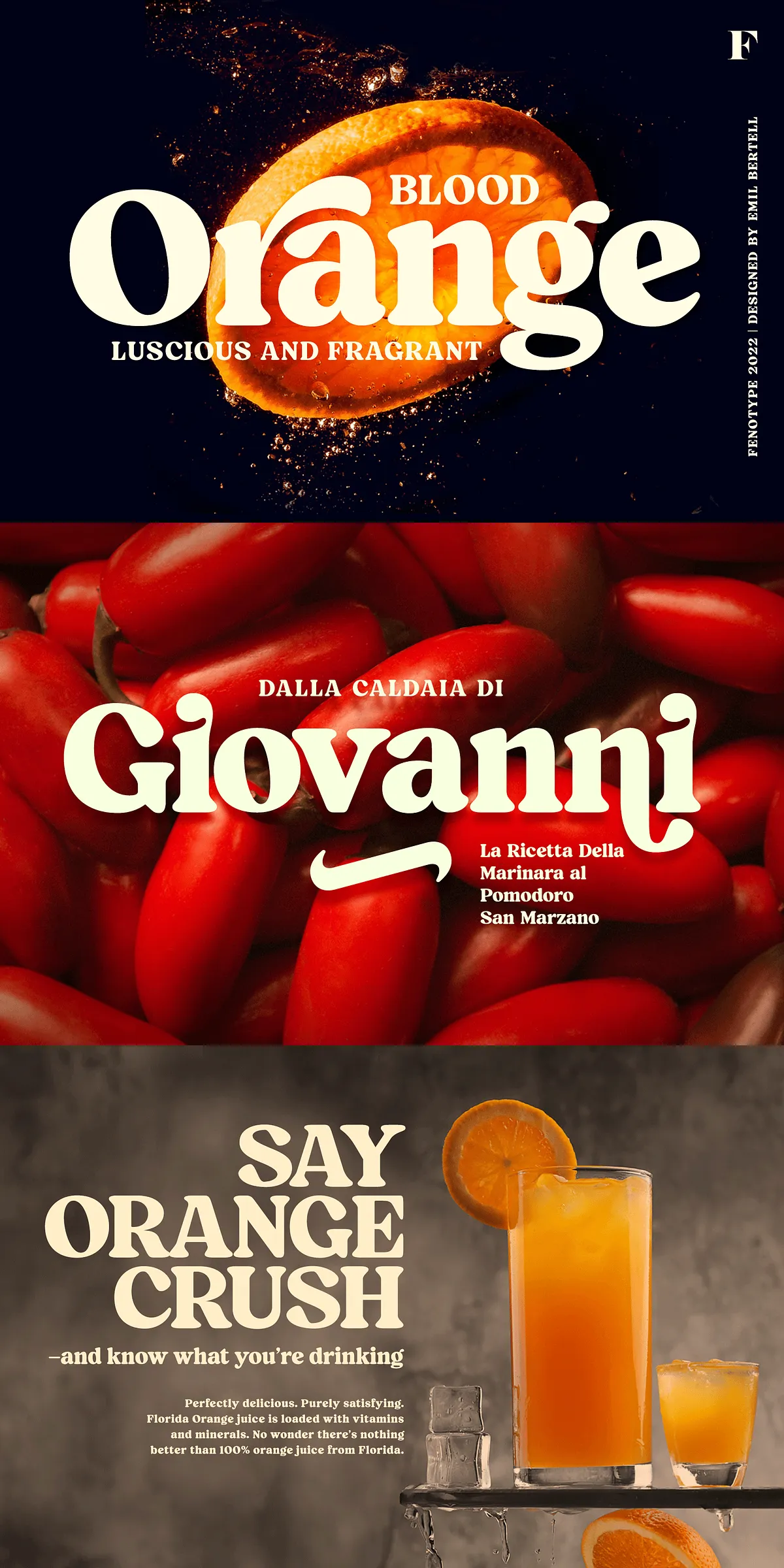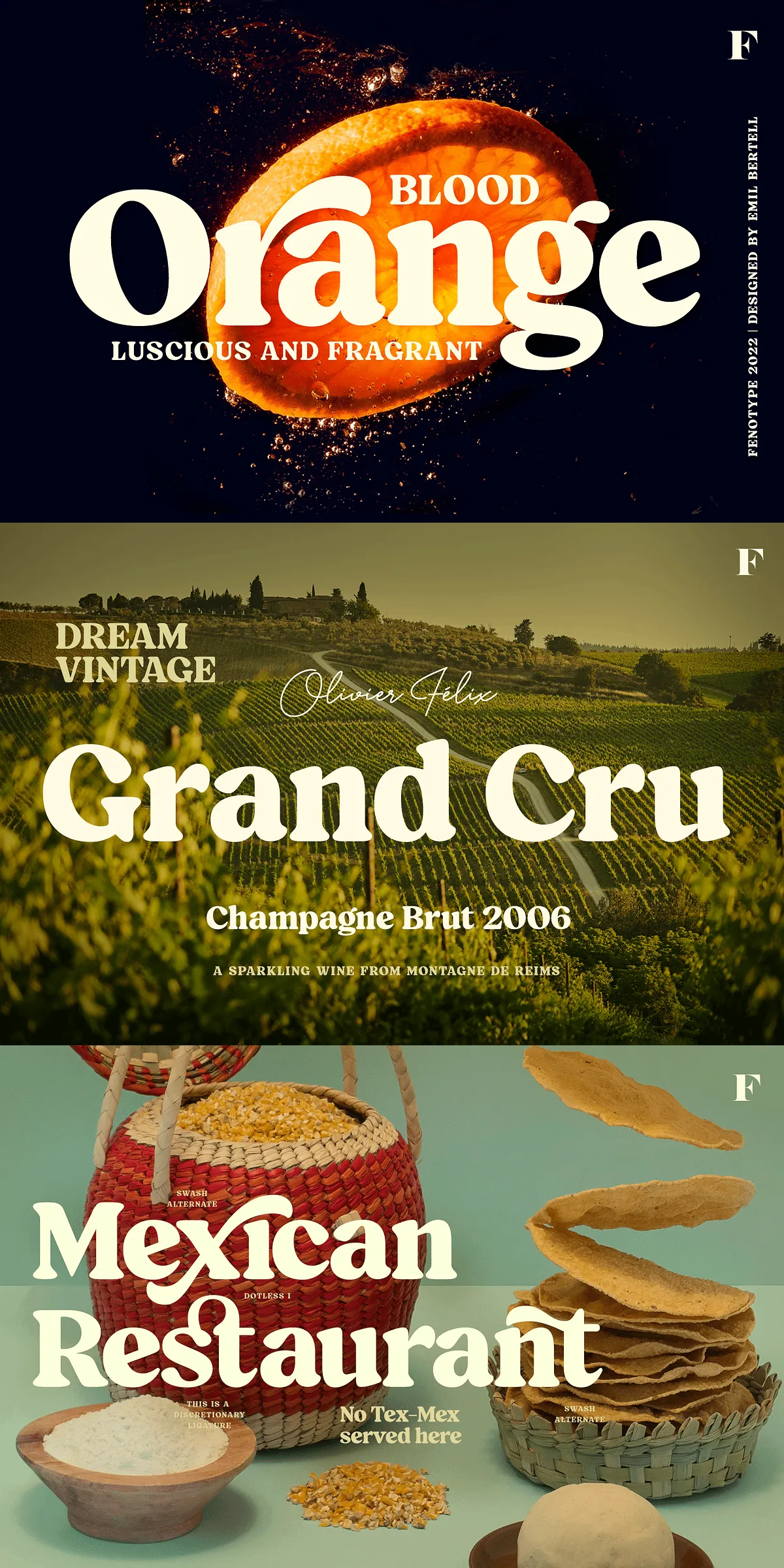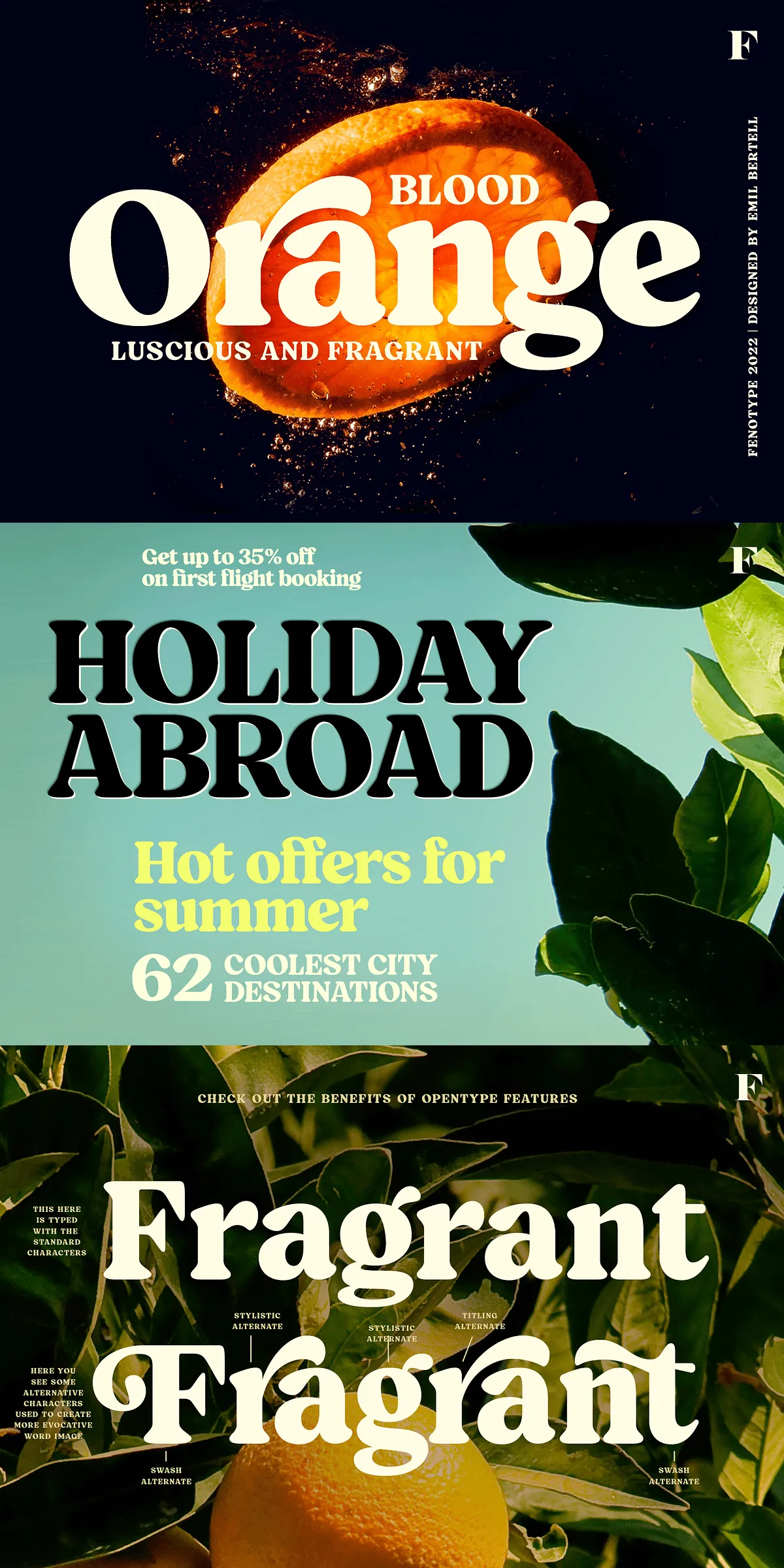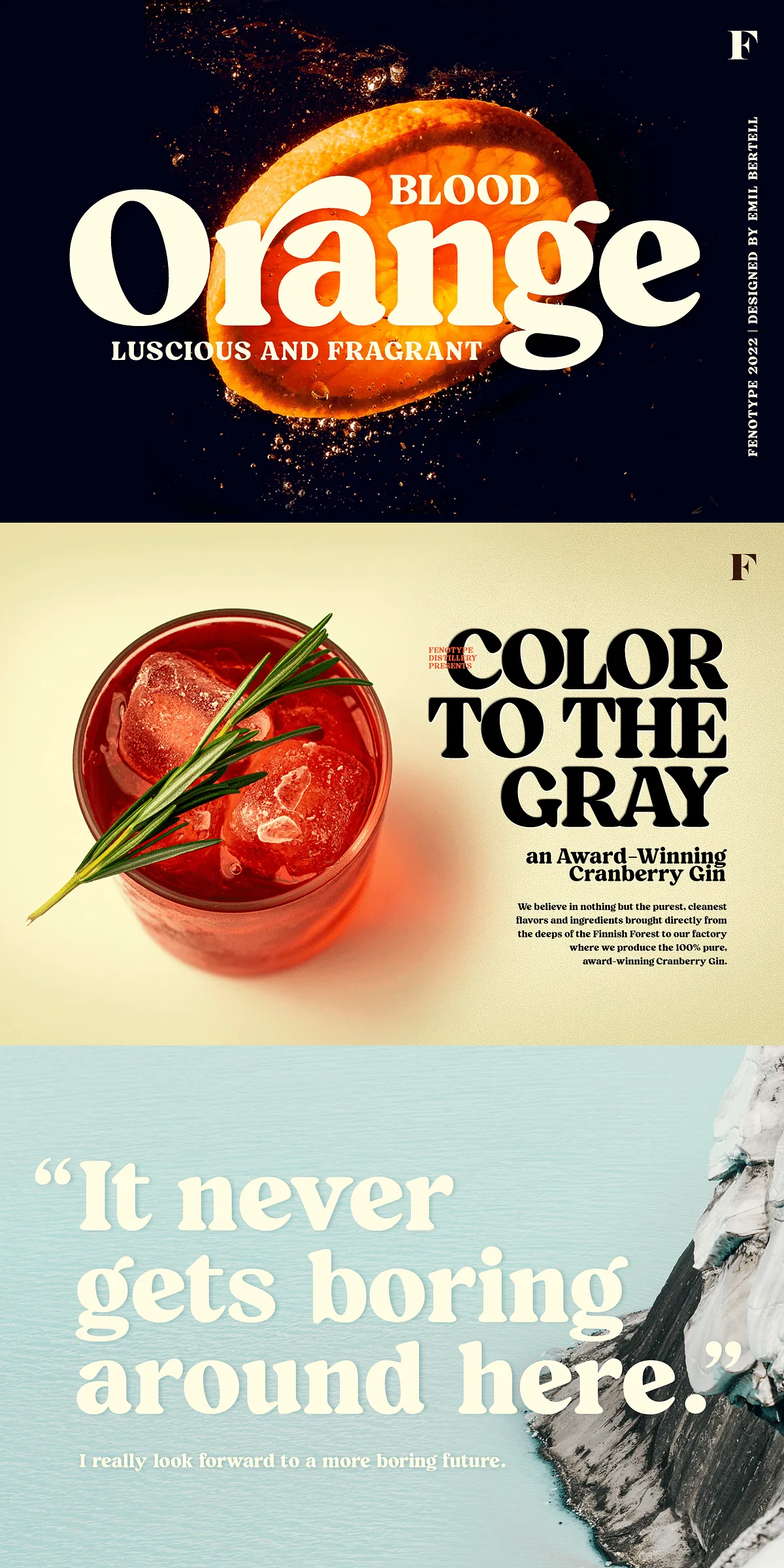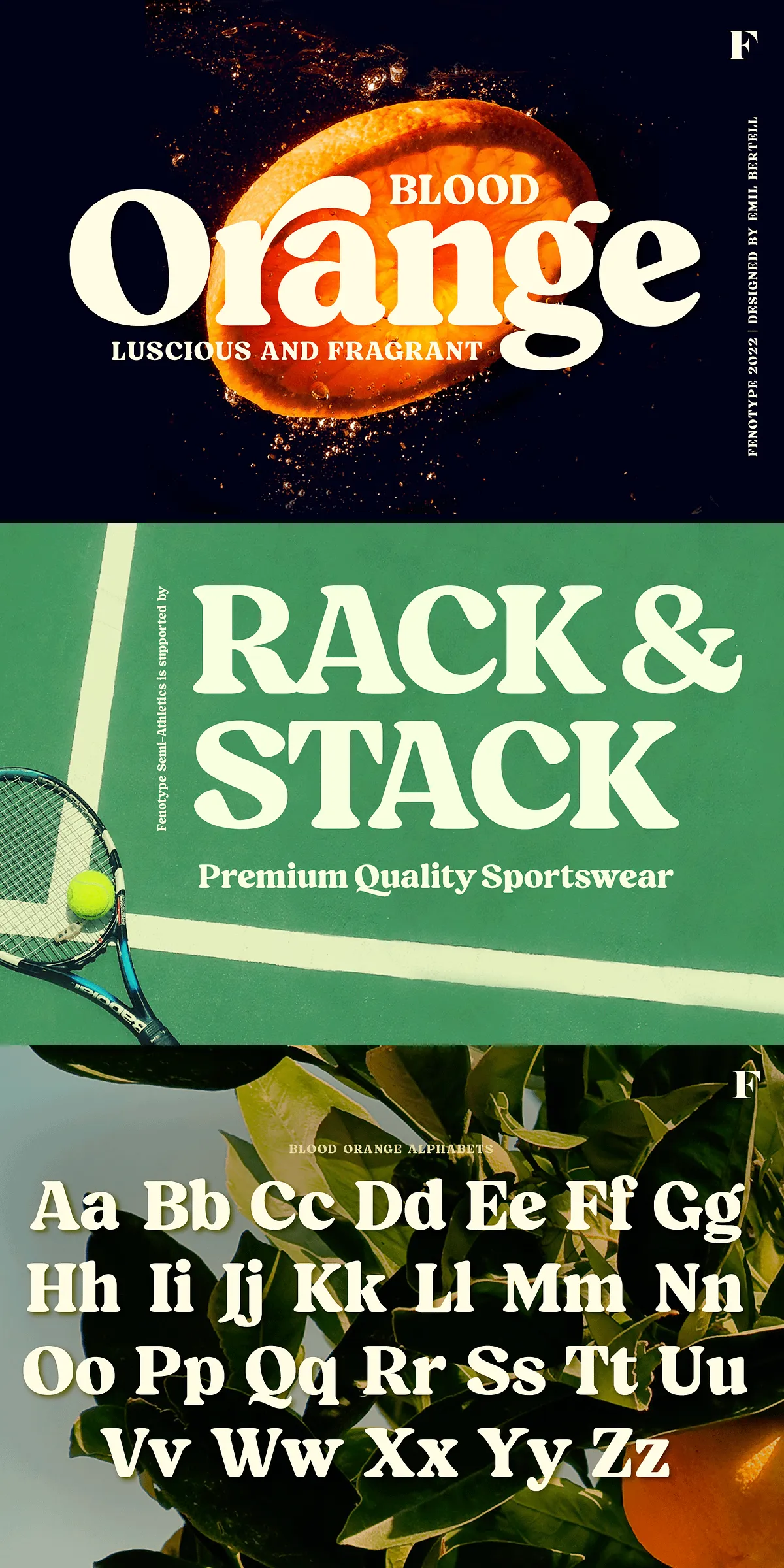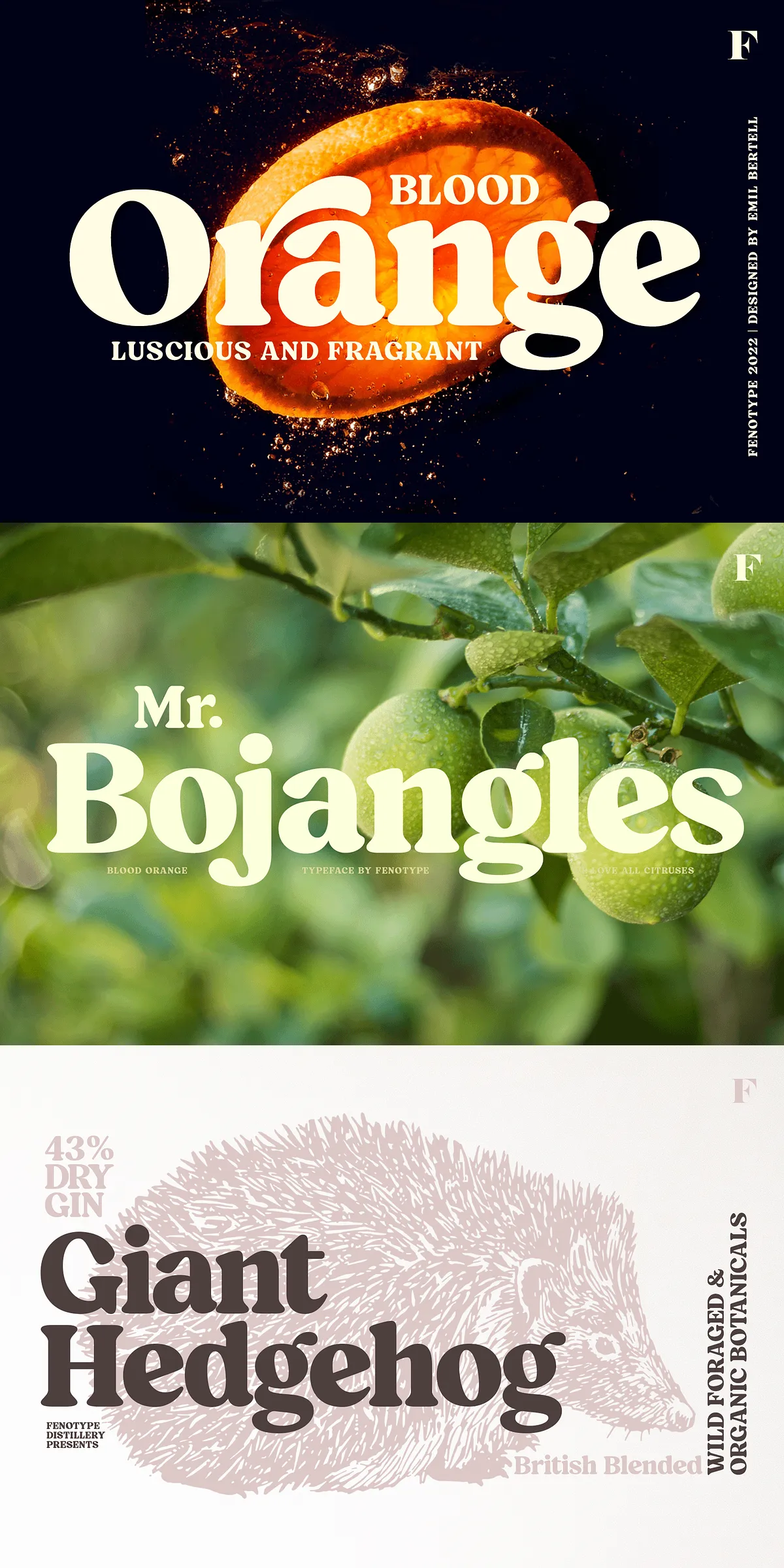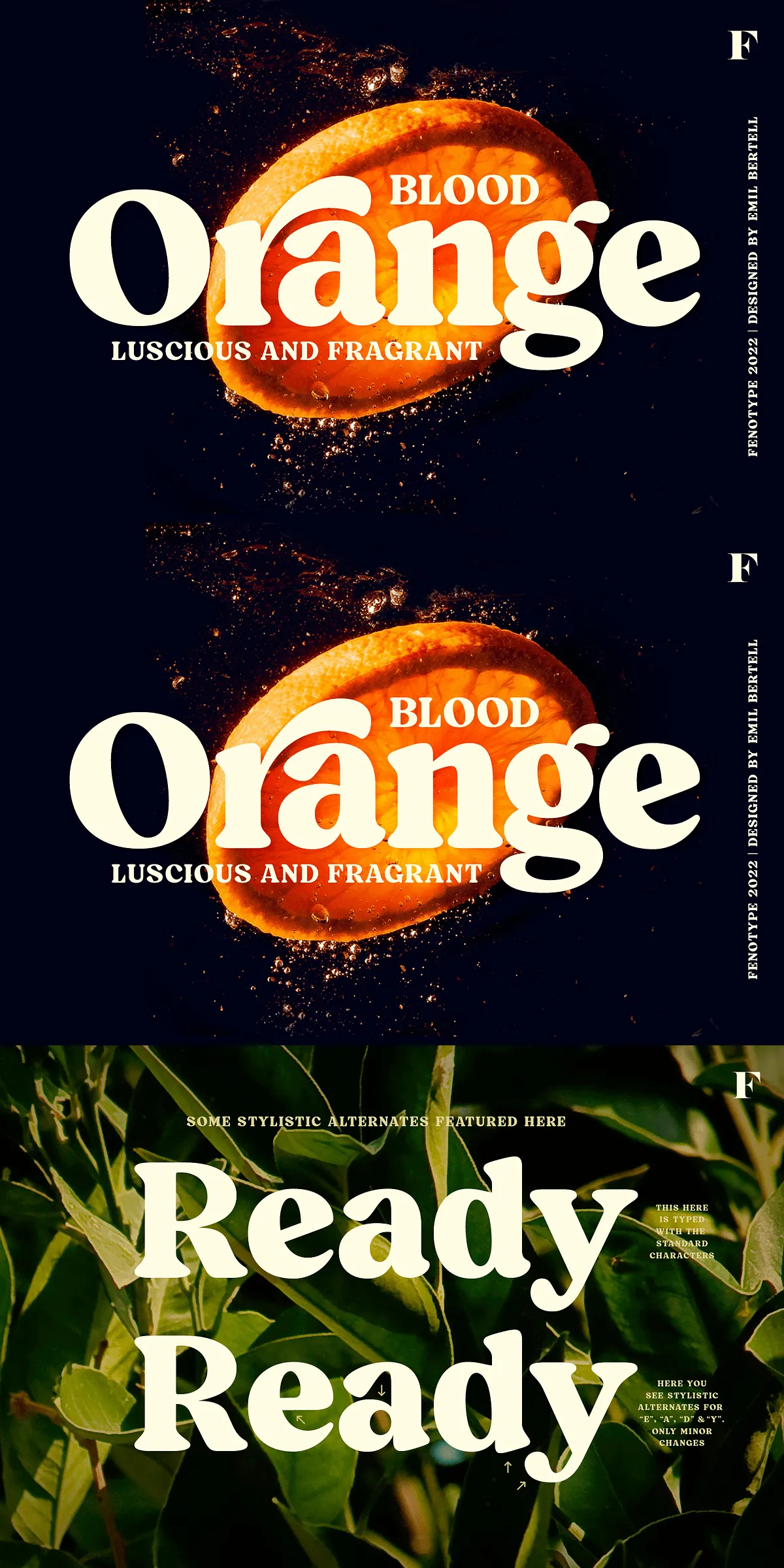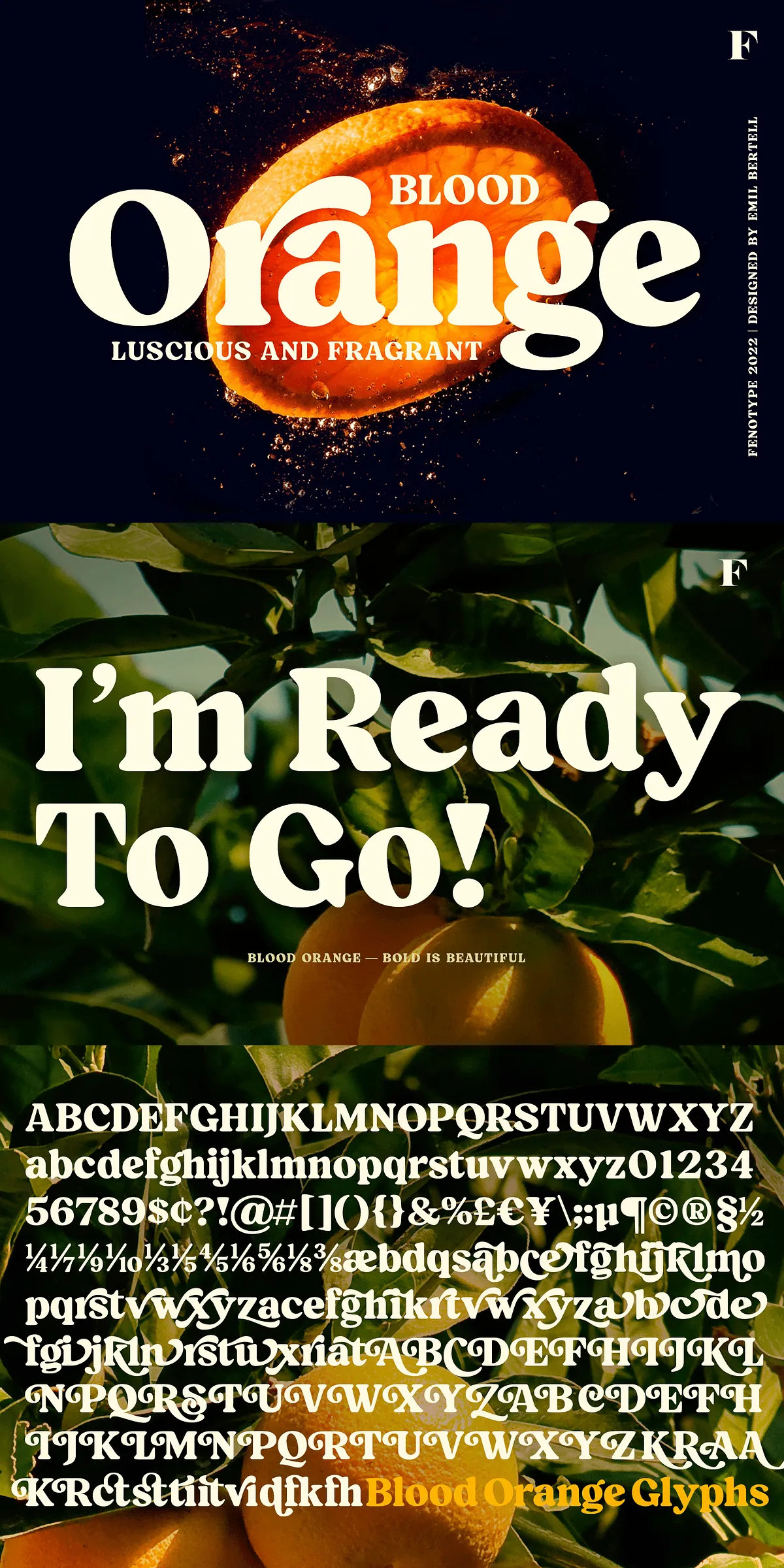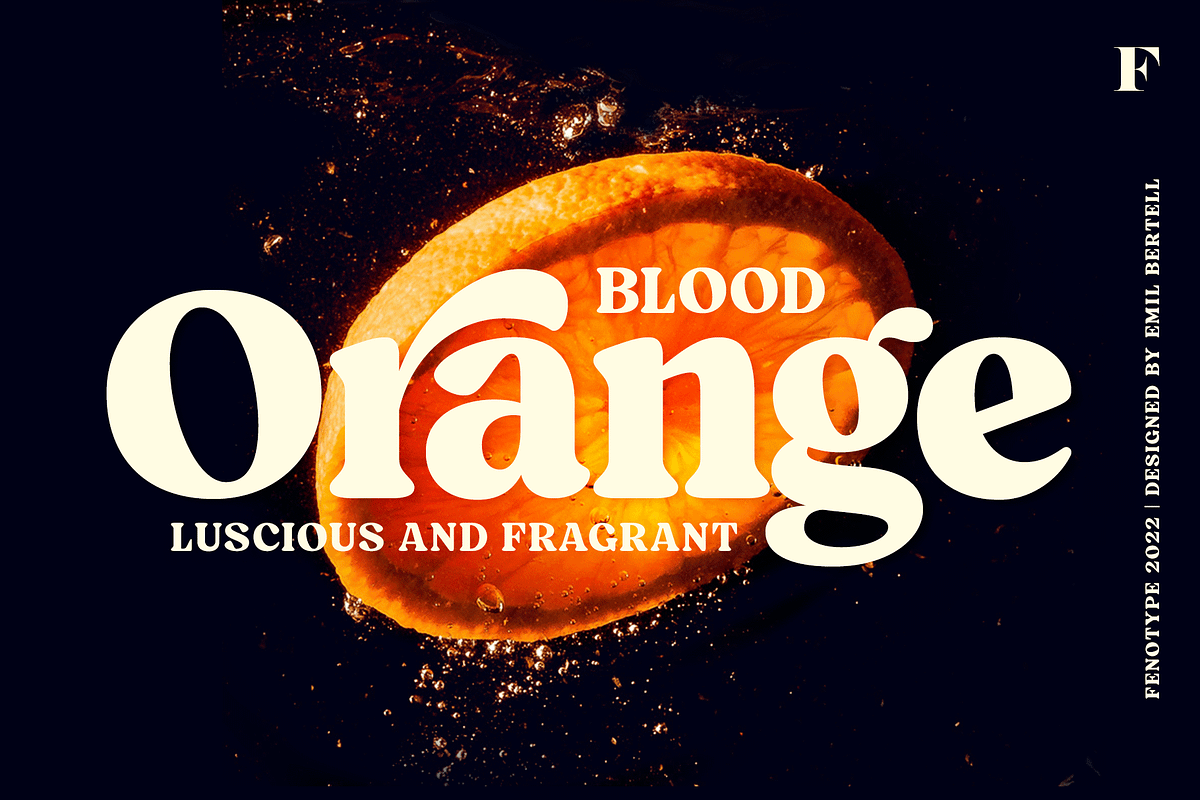
Blood Orange Vintage Serif
When your message needs weight, impact, and character, let Blood Orange do the talking. This powerful rounded serif font blends the friendly warmth of vintage typography with the clean precision of modern design. It’s not a relic from the past — it’s a bold statement for today’s creatives. Whether you’re crafting a striking logo, designing a magazine spread, producing a high-impact poster, or developing packaging that stands out on shelves, Blood Orange delivers instant presence and unmistakable personality.
Command Attention with a Modern Classic Design
Blood Orange is built to be seen. Its generous x-height, soft rounded forms, and subtle yet confident serifs give it a naturally approachable elegance — but don’t be fooled by its ease. This font carries substantial visual weight with a boldness that commands attention, making it ideal for short, powerful statements where impact matters most.
• Strong Visual Identity — Designed for logos, headlines, and branding that need to stand out.
• Modern Nostalgia — Evokes the warmth of classic typography without the dated feel.
• Excellent Readability — Even at large sizes, letterforms remain distinct and balanced.
• Dynamic Range — Works beautifully in both uppercase and mixed-case formats.
Perfect for campaigns where first impressions are everything, Blood Orange turns simple words into visual experiences.
Unlock Creative Depth with Advanced OpenType Features
Blood Orange isn’t just a font — it’s a creative toolkit. Fully equipped with a rich set of OpenType features, it empowers designers to elevate their work beyond the standard text.
• Contextual Alternates — Automatically adjust letterforms for smoother, more natural-looking text.
• Standard Ligatures — Enhance spacing and flow in common letter pairs like fi and fl.
• Discretionary Ligatures — Create elegant flourishes for a refined, high-end appearance.
• Stylistic Alternates — Swap standard glyphs for more expressive variations, adding depth and interest.
• Swash & Titling Alternates — Introduce dramatic flourishes for headlines and display use.
Use these features sparingly — like seasoned spice — to highlight key moments without overwhelming the design. Explore them in programs like Adobe Illustrator, InDesign, or Figma for full typographic control.
Perfect for Every Creative Application
Blood Orange thrives across industries and media, making it a versatile staple in any designer’s toolkit.
• Logotypes & Branding — Create memorable brand identities with a human, confident tone.
• Magazine & Editorial Design — Turn headlines into focal points with bold, expressive typography.
• Posters & Advertising — Stand out in print and digital campaigns with a font that draws the eye.
• Packaging & Product Design — Add premium feel to labels and boxes with a touch of bold, friendly charm.
• Web & UI Typography — Use with care for large display text; pair with clean sans-serifs for balance.
It’s especially effective in short phrases — where its bold personality shines brightest. Use with generous spacing for maximum readability and visual comfort.
• Full Character Set — Includes uppercase and lowercase letters, numerals, punctuation, currency symbols, and multilingual support.